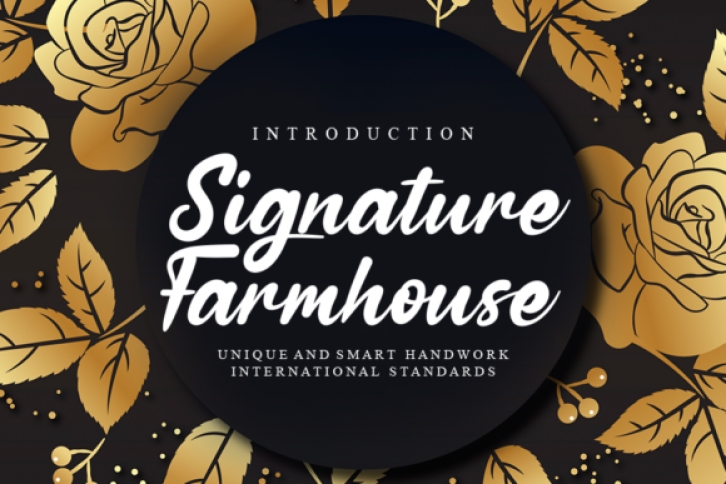
Signature Farmhouse is a sweet and cursive handwritten font. This gentle font will look gorgeous on a variety of design ideas. It will add a joyful and romantic touch to each of your projects!